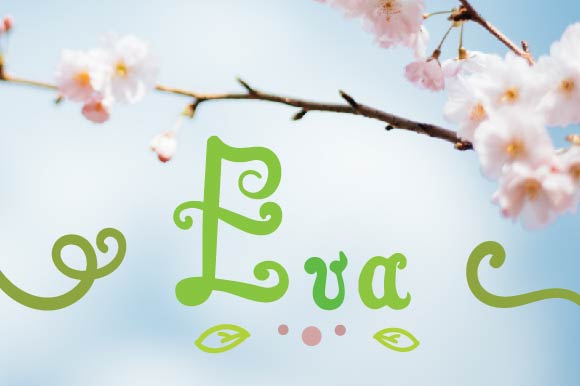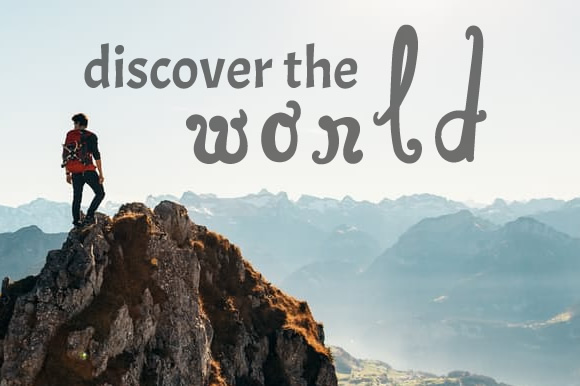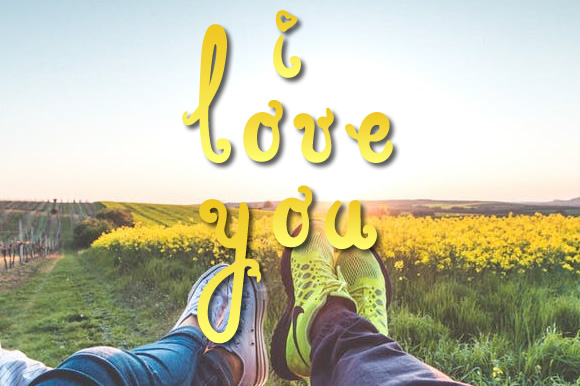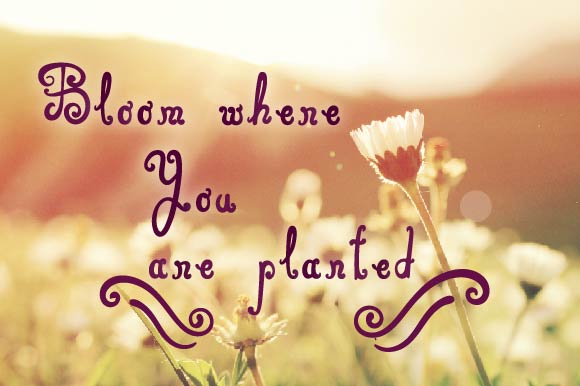
Eva Script Font
About Eva Script Font
The Eva Script font is a cute playful hand-drawn font created by Creatoria Designs.
Every letter is packed with details, making it a very versatile font. Each letter is easy to read, making it a suitable font for both print and digital.